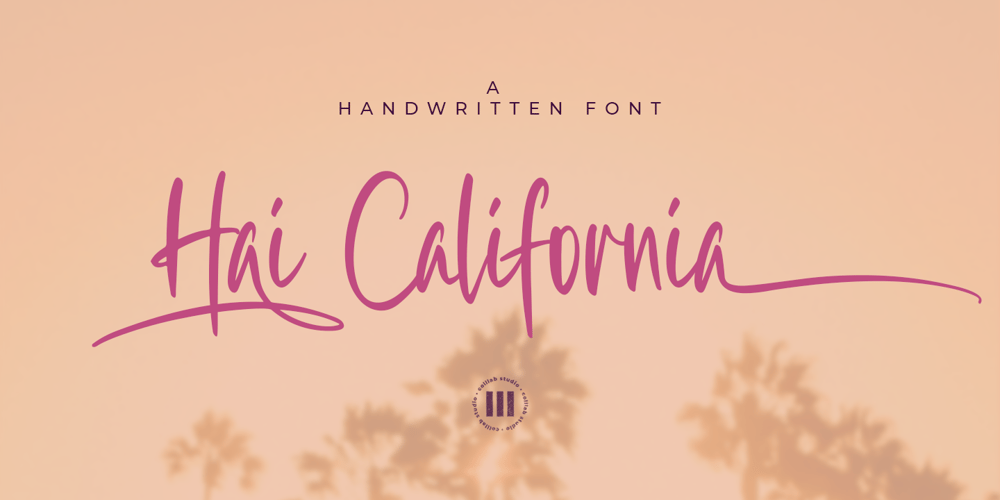
Hai California
Hai California font
Hai California Font Family was designed by Muh. Aswar and published by Colllab Studio. Hai California contains 1 styles and family package options. Meet Hai California, a handwritten font with a fancy script and a small-caps companion, this passionate pair of hand-drawn marker fonts is for logos + branding ,website design + website accents – think travel blogs, fashion blogs, & more, Clean print design, like magazines + flyers, header elements that need handwritten touch, quote graphics for social media.Hai California comes with stylistic alternate, ligatures, swashes, and multilingual support.Follow us for more great fonts.A Million ThanksColllab Studio